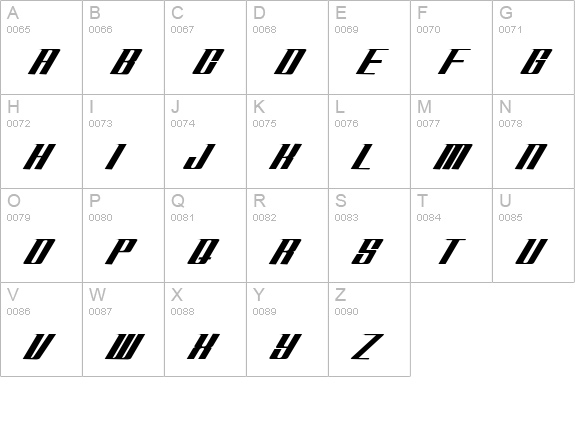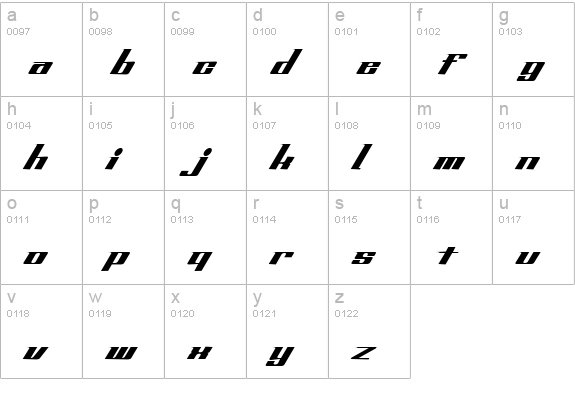
AddSpeedy Font Details
AddSpeedy font is a modern and sleek typeface that exudes speed and dynamism. With its sharp edges and bold letterforms, this font is perfect for projects that require a sense of urgency and movement. Whether you are designing a poster for a fast-paced event or creating a logo for a cutting-edge brand, AddSpeedy font will make your text stand out and grab attention. The best part about AddSpeedy font is that it is completely free! You can easily download this font at FontsMarket.com and start using it in your projects right away. Don't miss out on the opportunity to add a touch of speed and energy to your designs with the stylish AddSpeedy font.